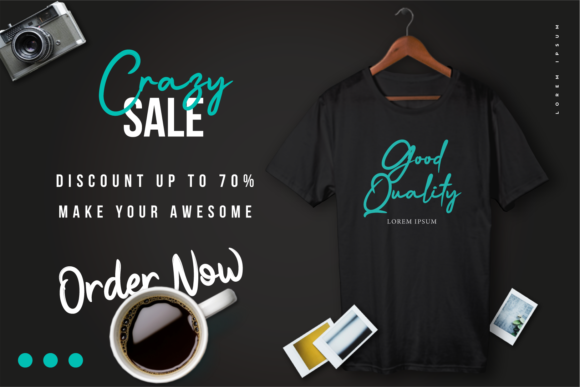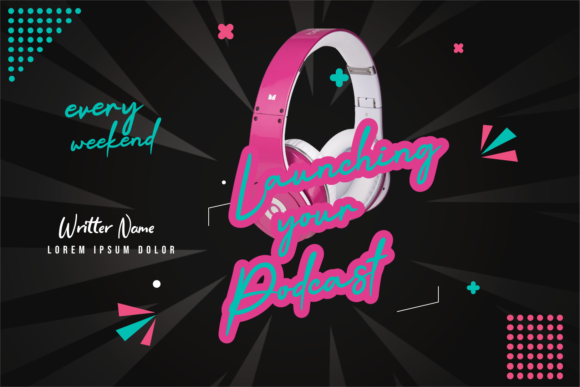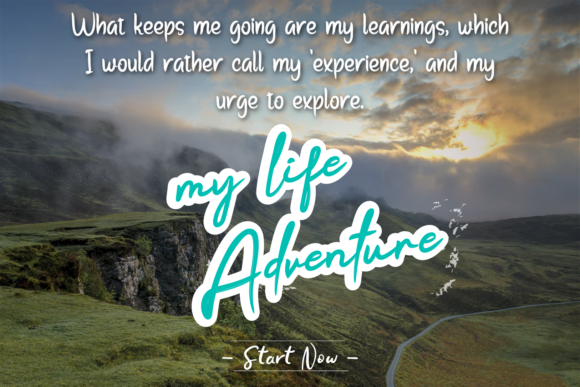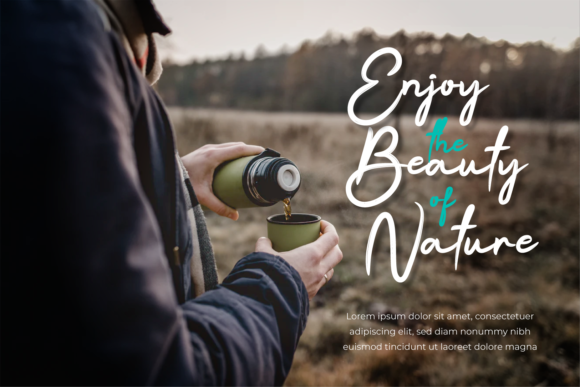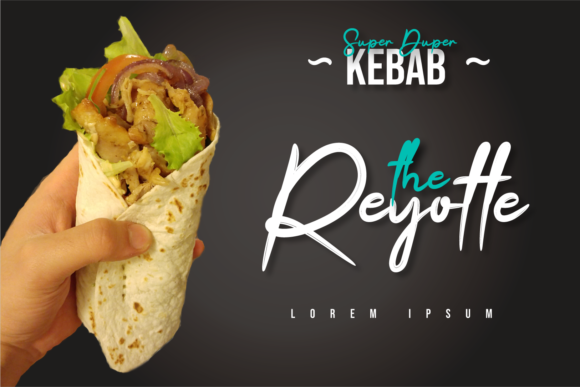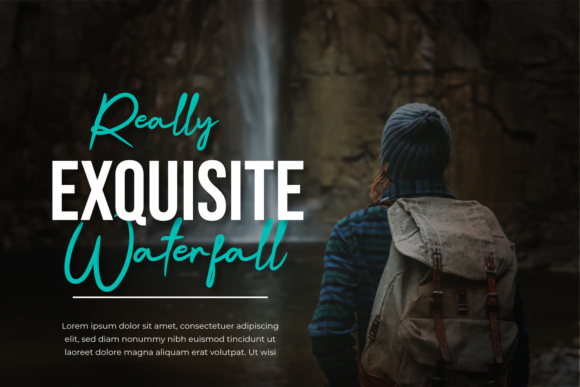
Unleash Your Creativity with the Perfect Font
Have you ever been stuck on a design project, scrolling through font options, and just couldn’t find the right one? I know I have. But what if I told you there’s a font that can elevate your designs to the next level, making you feel like a pro in no time? Meet Beauty Kesya Font, a casual and fashionable handwritten font that’s perfect for adding a touch of personality to your work.
This versatile font is designed to be trendy and on-point, making it a valuable addition to any designer’s toolkit. Whether you’re working on a fashion blog, a foodie website, or a personal brand, Beauty Kesya Font is sure to bring a smile to your customers’ faces. Its effortless charm and style make it an instant favorite among designers, and for good reason – it’s a game-changer when it comes to making your designs pop.
Beauty Kesya Font Key Features
- Unique Characteristics: This font features a unique blend of traditional and modern elements, with intricate details and subtle flourishes that set it apart from other script fonts.
- Kerning and Ligatures: The font includes advanced kerning and ligature pairs, ensuring that text flows smoothly and looks professional, even at small font sizes.
Beauty Kesya Font Review
Initially, I was excited to try the Beauty Kesya Font. Here’s what I found:
- The font is elegant and sophisticated, perfect for high-end fashion or beauty brands.
- It has a unique and distinctive look, setting it apart from more common serif or sans-serif fonts.
- The font is highly legible, even at smaller text sizes.
- It’s also available in a range of weights, from light to bold, allowing for flexibility in design.
- The font may be too ornate for some designs, potentially overwhelming the content.
- It’s not ideal for body text, as the flair and flourishes can be distracting.
- The font may require more manual adjustment to achieve the desired look, which can be time-consuming.
Overall, Beauty Kesya Font is a beautiful and distinctive choice for specific design applications. While it excels in certain areas, it may not be the best fit for all projects. I would recommend it for high-end fashion or beauty brands, or for projects where a unique, elegant look is desired.
Getting the Most Out of Beauty Kesya Font
To get the most out of the Beauty Kesya Font, consider the following tips:
Pair it with elegant graphics and images for a sophisticated look.
Use it for titles, headings, and emphasis to add visual interest.
Experiment with different font sizes and styles to create a unique look.
The Beauty Kesya Font is ideal for:
Beauty and fashion branding.
High-end packaging and marketing materials